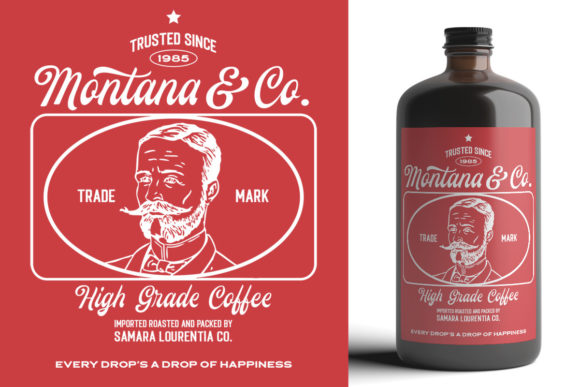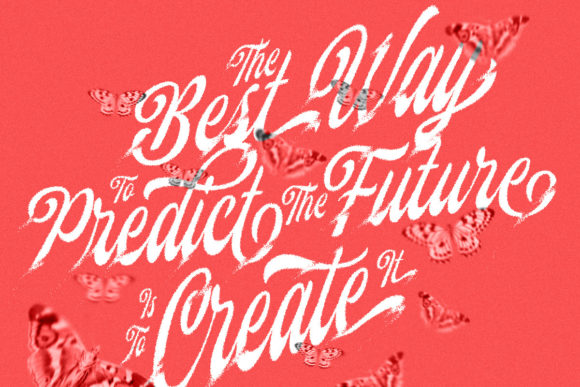
The Linestay Font
db-ku.com - Script & Handwritten -- The Linestay is a bold, cursive and vintage styled handwritten font, crafted to give your headlines and logotype projects a stylish touch. This font reads as strong, confident, and dynamic and can add tons of nostalgic character to your designs.